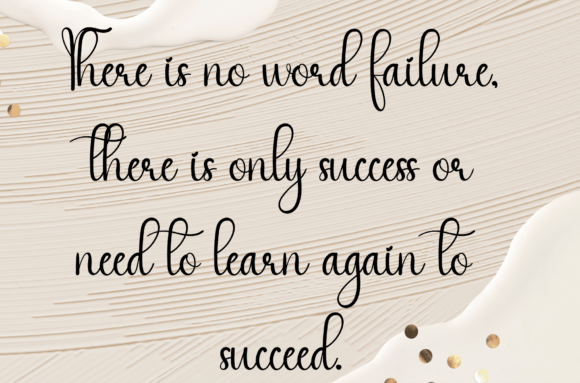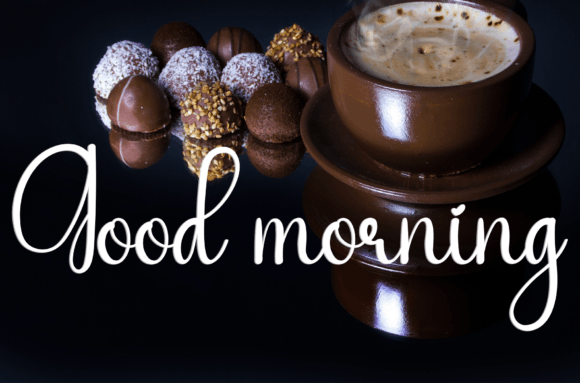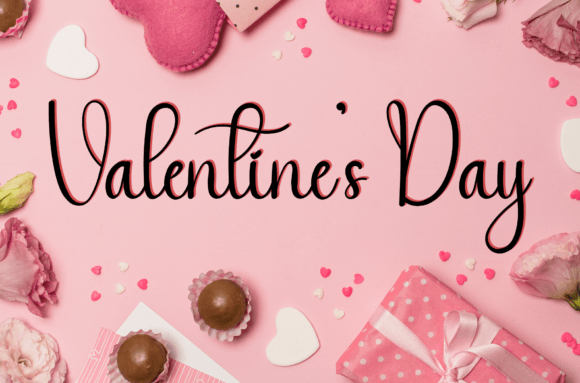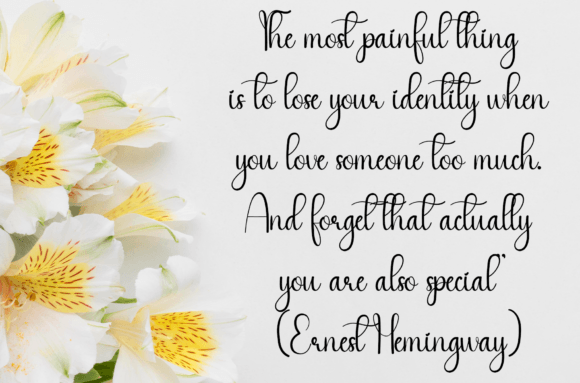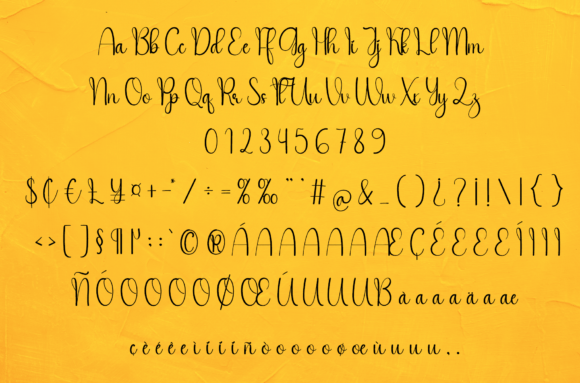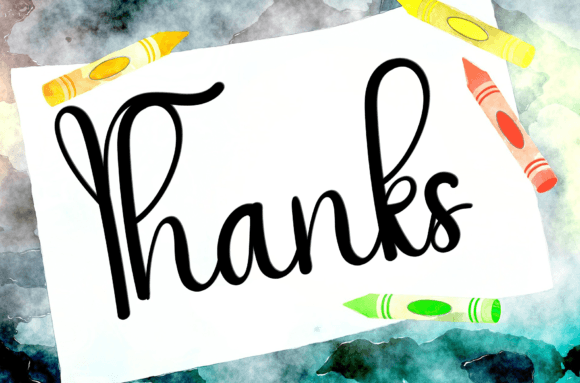
Discover the Delightful Ghost Font: Your New Go-To for Creative Projects
Are you on the hunt for a font that adds a touch of whimsy and friendliness to your projects? Look no further than the Ghost Font! This charming, handwritten font is perfect for a wide range of creative endeavors, from crafting and digital design to presentations and greeting cards. In this article, we’ll dive into the world of Ghost Font, exploring its features, uses, and benefits for designers and crafters alike.
What is Ghost Font?
Ghost Font is a fun and friendly handwritten font designed to bring a sense of playfulness and approachability to your projects. Its unique, cursive style is reminiscent of handwritten text, making it perfect for creating a personal touch in various designs. Whether you’re working on a DIY craft, a digital project, or a presentation, Ghost Font is sure to add a dash of personality and charm.
Key Features of Ghost Font
So, what makes Ghost Font so special? Here are some of its key features:
- Handwritten style: Ghost Font boasts a beautiful, handwritten look that’s perfect for creating a personal touch in your designs.
- Versatile: This font is suitable for a wide range of projects, from crafts and digital design to presentations and greeting cards.
- Easy to read: Despite its playful style, Ghost Font is easy to read, making it perfect for both headings and body text.
- Fun and friendly: The font’s unique style is sure to add a touch of whimsy and friendliness to your projects.
Uses for Ghost Font
Ghost Font is an incredibly versatile font that can be used in a variety of creative projects. Here are some ideas to get you started:
- Crafts: Add a personal touch to your DIY crafts, such as scrapbooking, card making, and journaling.
- Digital design: Use Ghost Font in your digital designs, including social media graphics, blog posts, and website headers.
- Presentations: Add some personality to your presentations with Ghost Font, making them more engaging and fun.
- Greeting cards: Create beautiful, handmade-style greeting cards for special occasions.
So, why should designers and crafters choose Ghost Font for their projects? Here are some benefits:
- Easily add personality: Ghost Font allows you to add a touch of personality and whimsy to your projects, making them stand out from the crowd.
- Save time: With Ghost Font, you can create professional-looking designs in no time, thanks to its easy-to-read style and versatile nature.
- Inspire creativity: The font’s unique style is sure to inspire your creativity, helping you to come up with fresh ideas and designs.
- Perfect for all occasions: Whether you’re working on a project for a special occasion or just want to add some personality to your everyday designs, Ghost Font is the perfect choice.
In conclusion, Ghost Font is a fun and friendly handwritten font that’s perfect for designers and crafters alike. Its unique style, versatility, and ease of use make it an excellent addition to any creative project. Whether you’re working on a craft, digital design, presentation, or greeting card, Ghost Font is sure to become your go-to font. So why not give it a try and see the magic it can bring to your designs?
With Ghost Font, you can add a touch of personality and whimsy to your projects, making them stand out from the crowd. So, don’t wait – start exploring the world of Ghost Font today and discover the endless creative possibilities it has to offer!